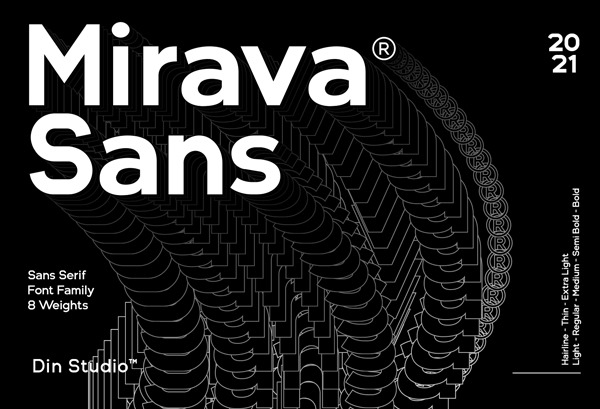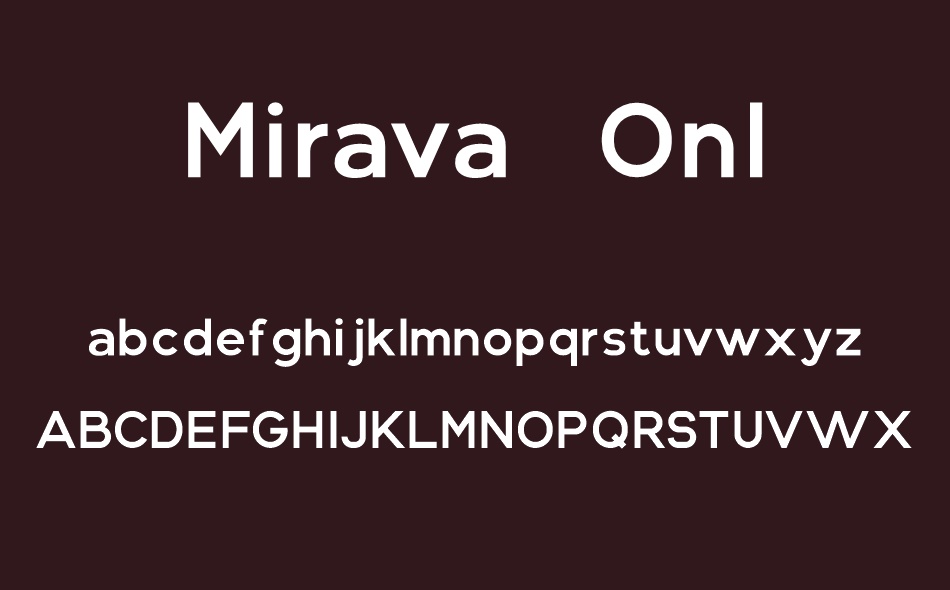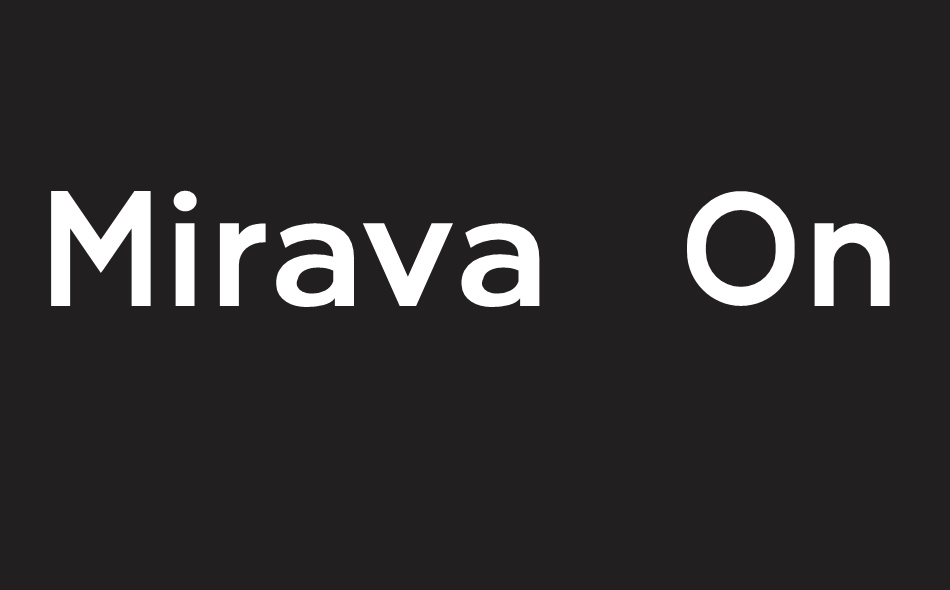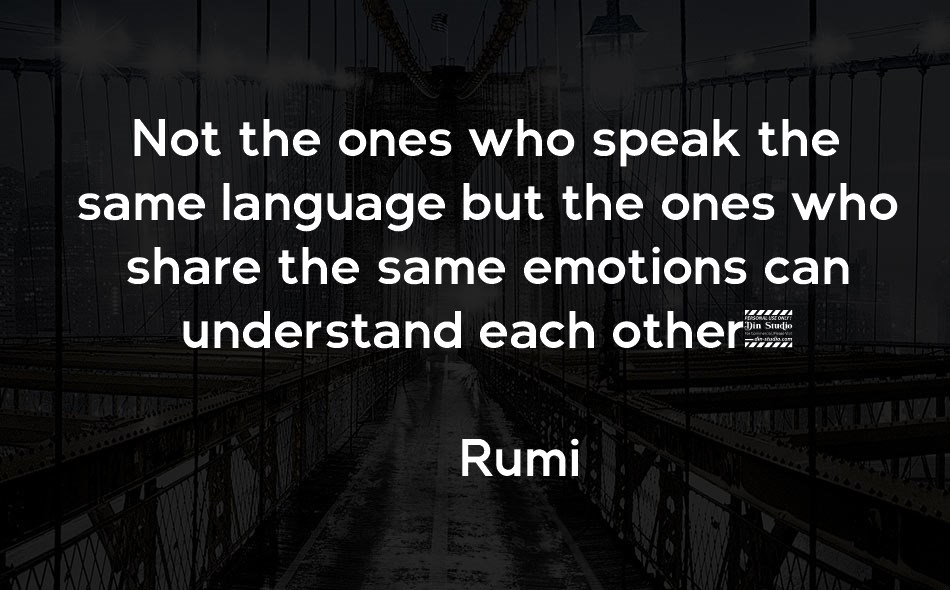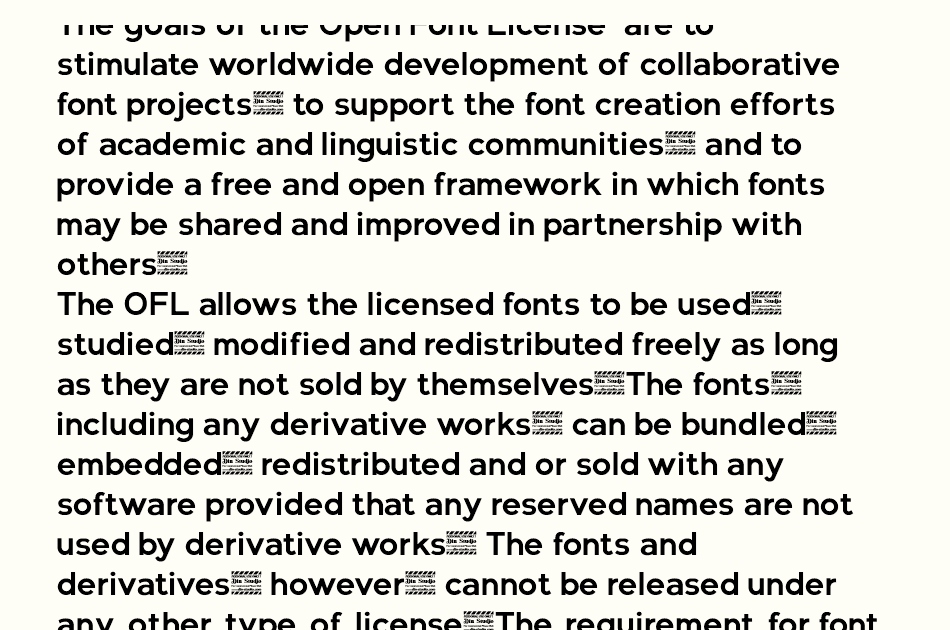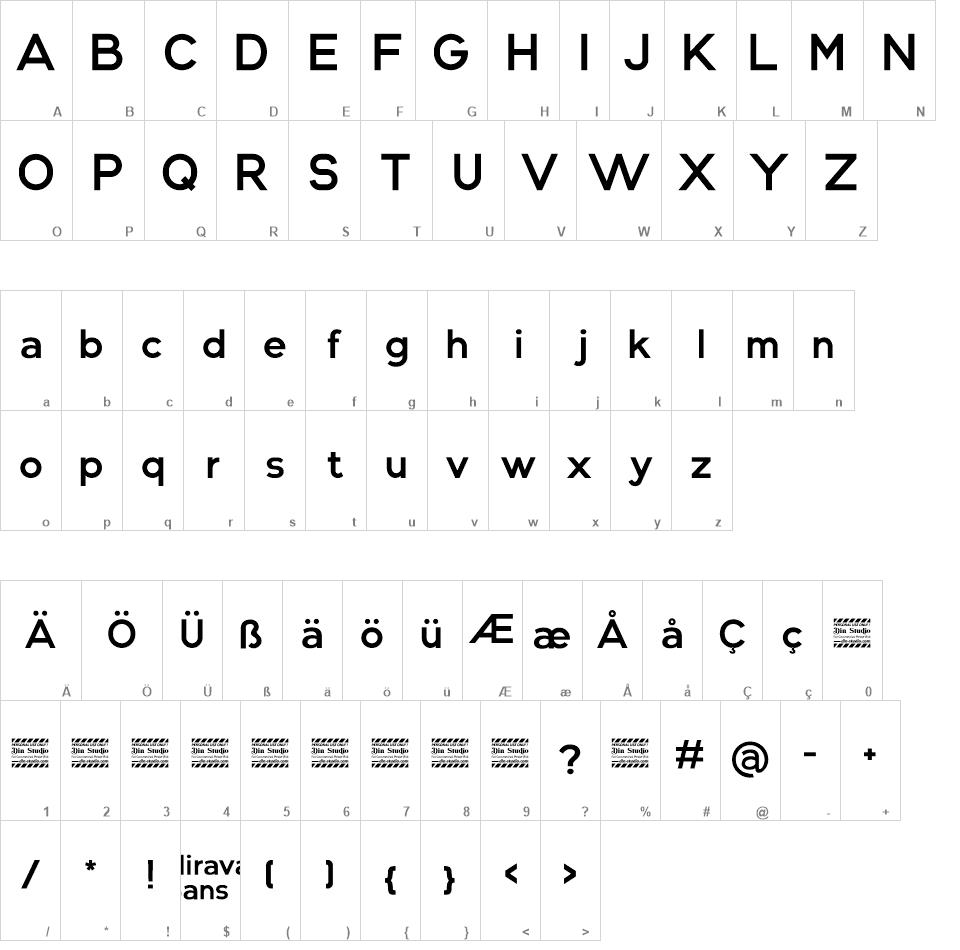
Mirava font
Mirava Sans-A Sans Serif Font Family
If we can give you many options then why not? Mirava San is a package that will delight you. With this family you will get many options to maximize your designs with stylish fonts.
Mirava Sans-A Sans Serif Font Family
If we can give you many options then why not? Mirava San is a package that will delight you. With this
family you will get many options to maximize your designs with stylish fonts. This font designed to bring
your branding to life and add a touch of modernity, fun and style. Mirava paves the way for you to write
the information you need to send out to your audience. Perfect to create amazing headings, logos,
menus, social media graphics, and many more.